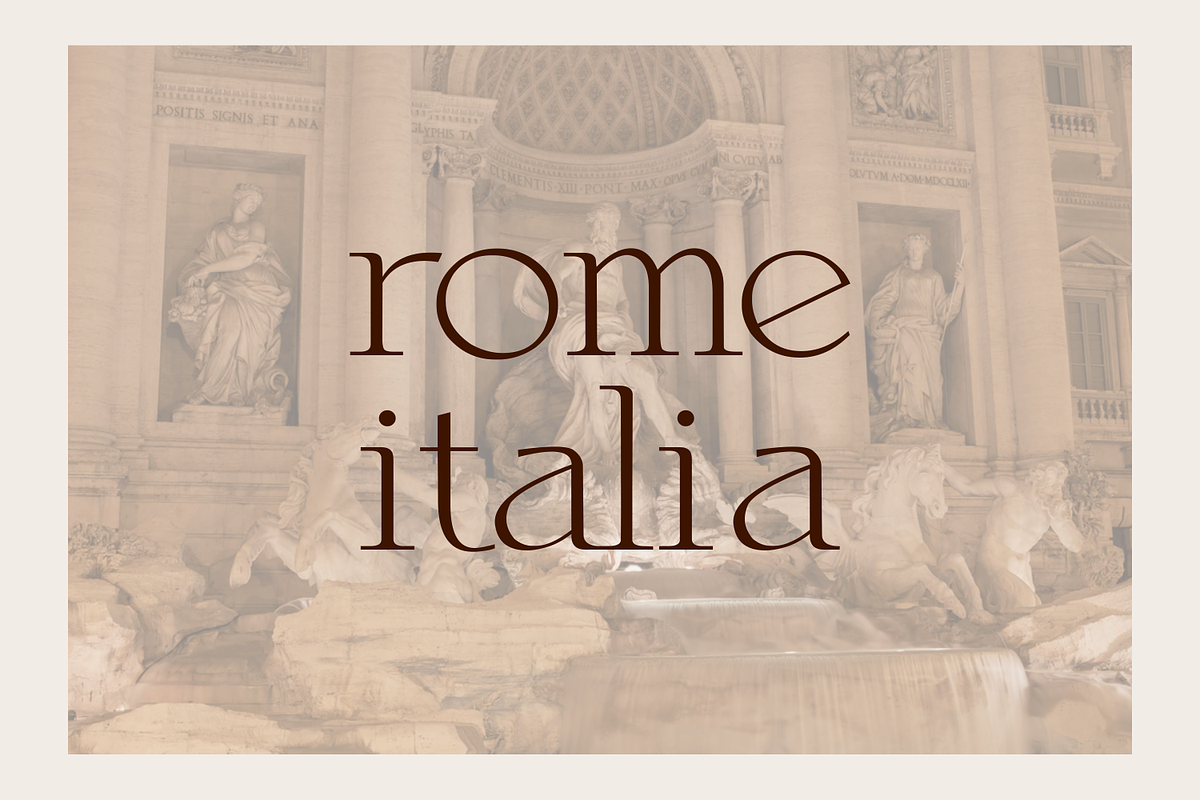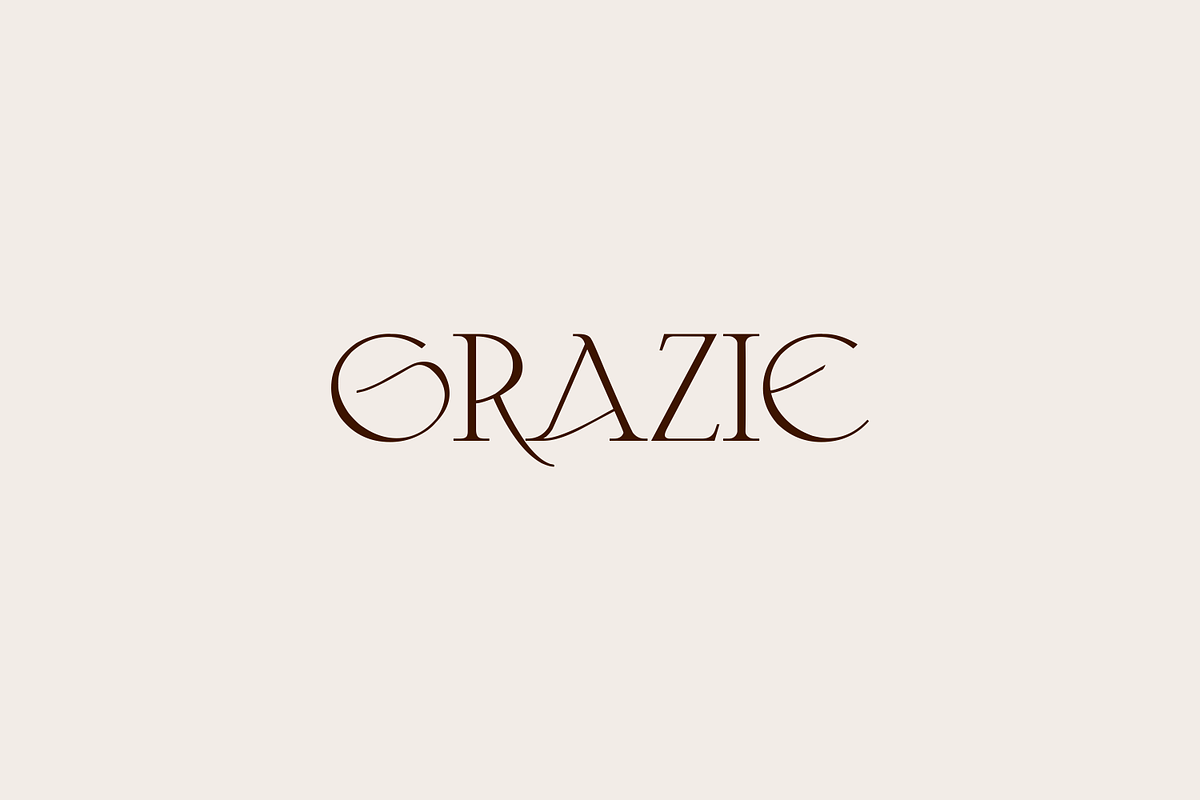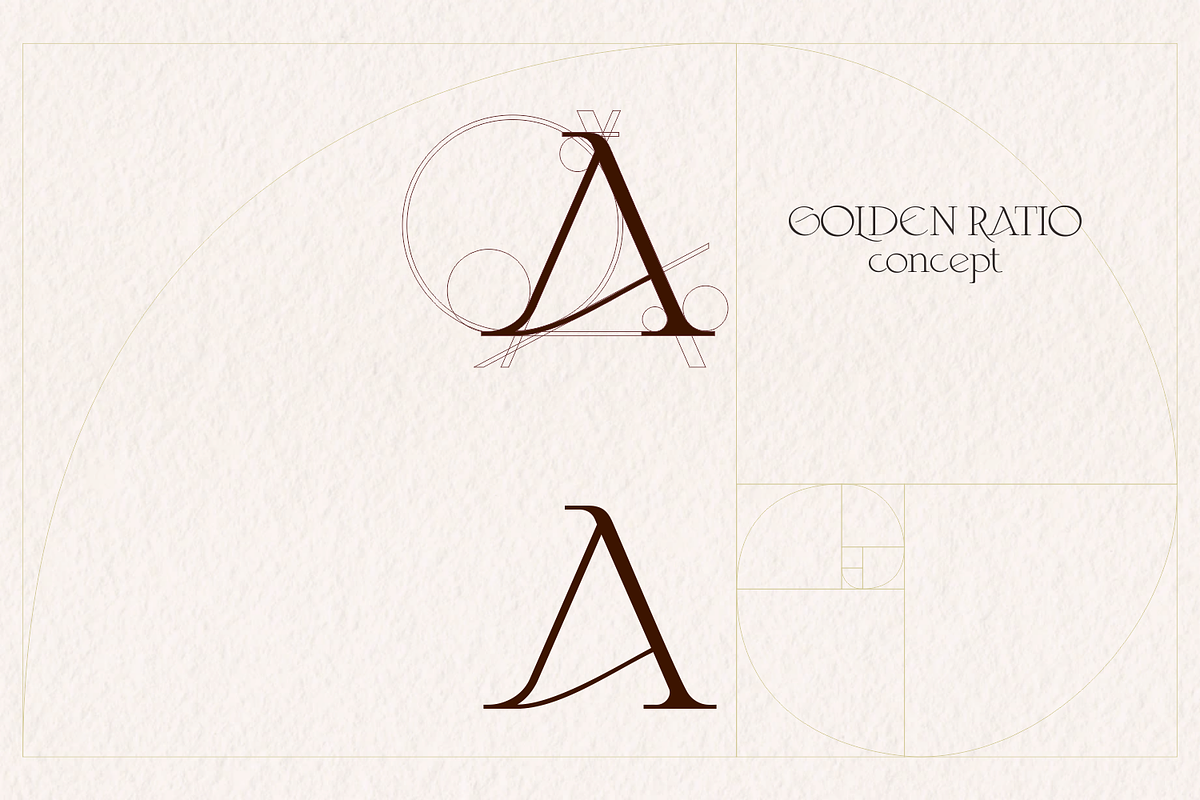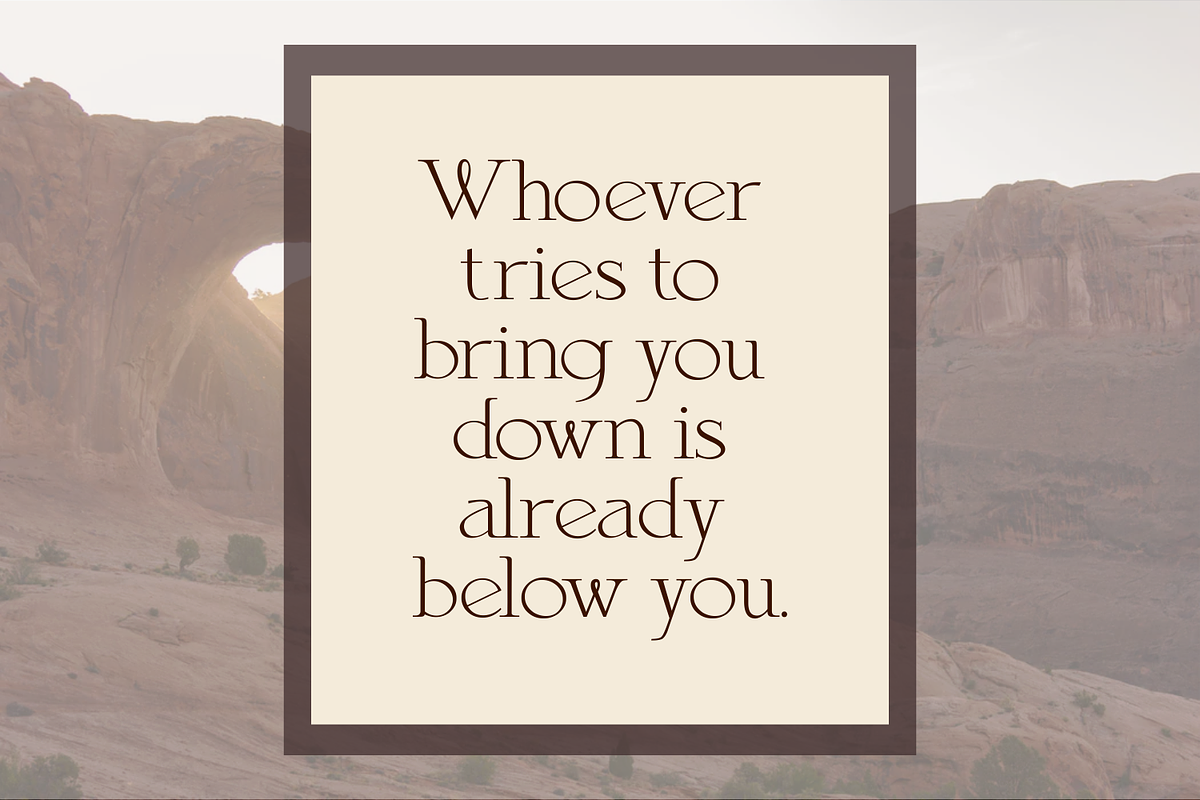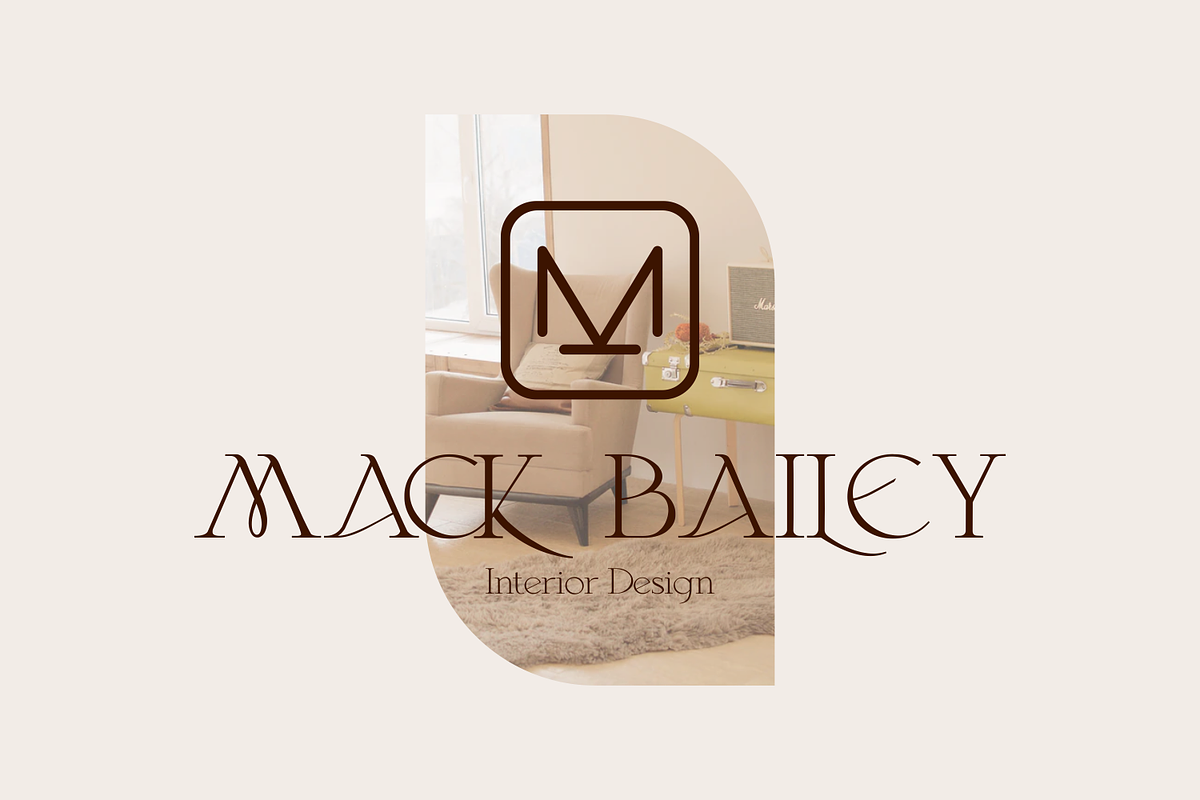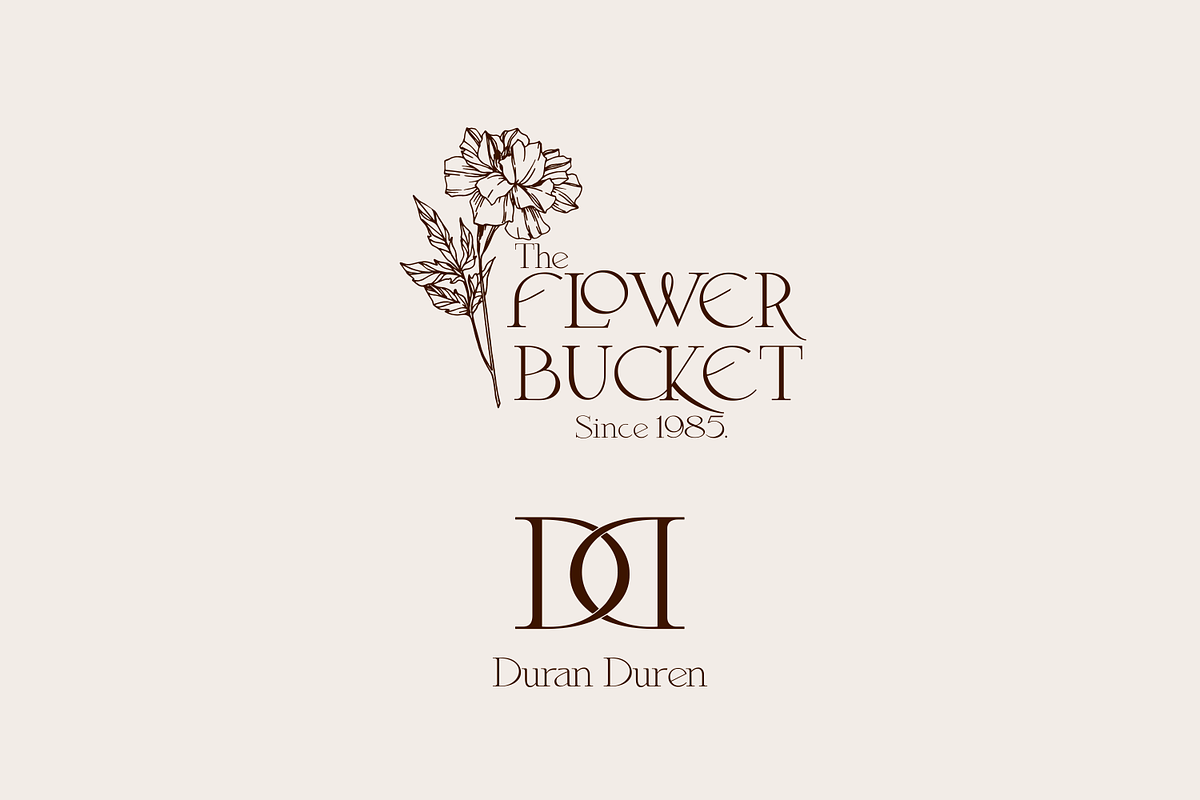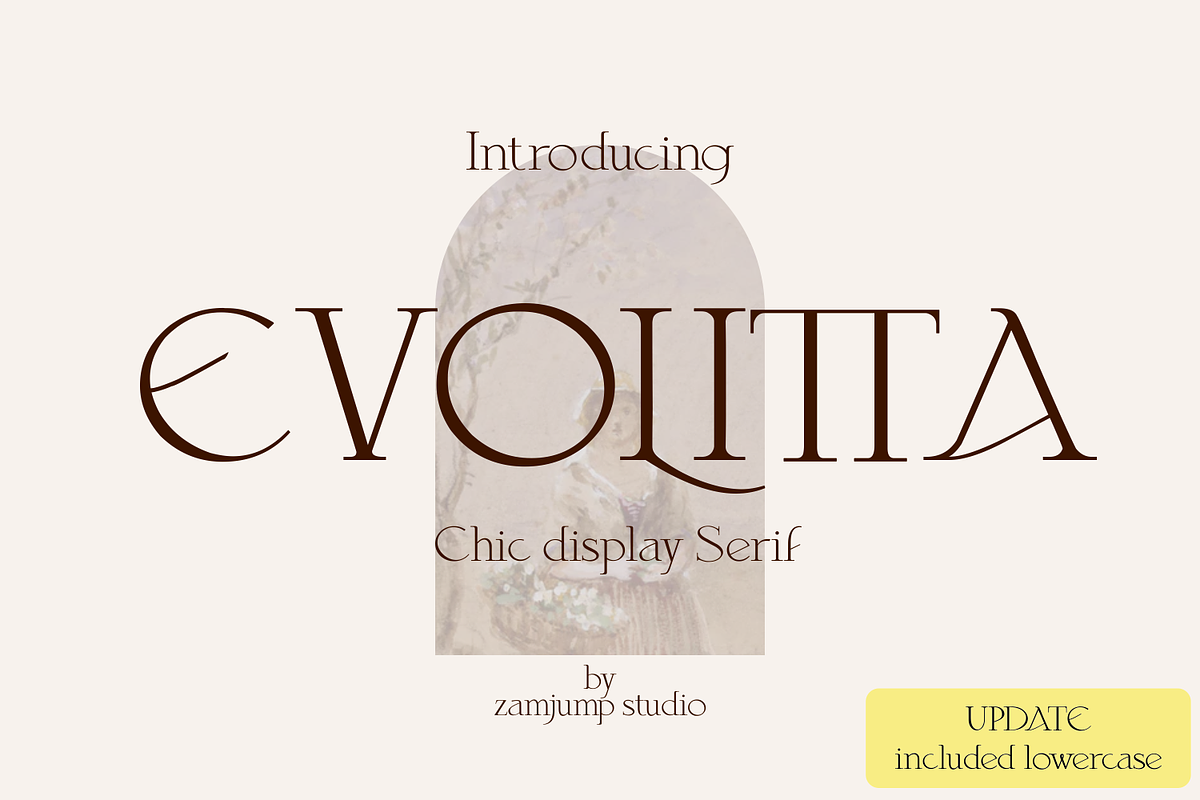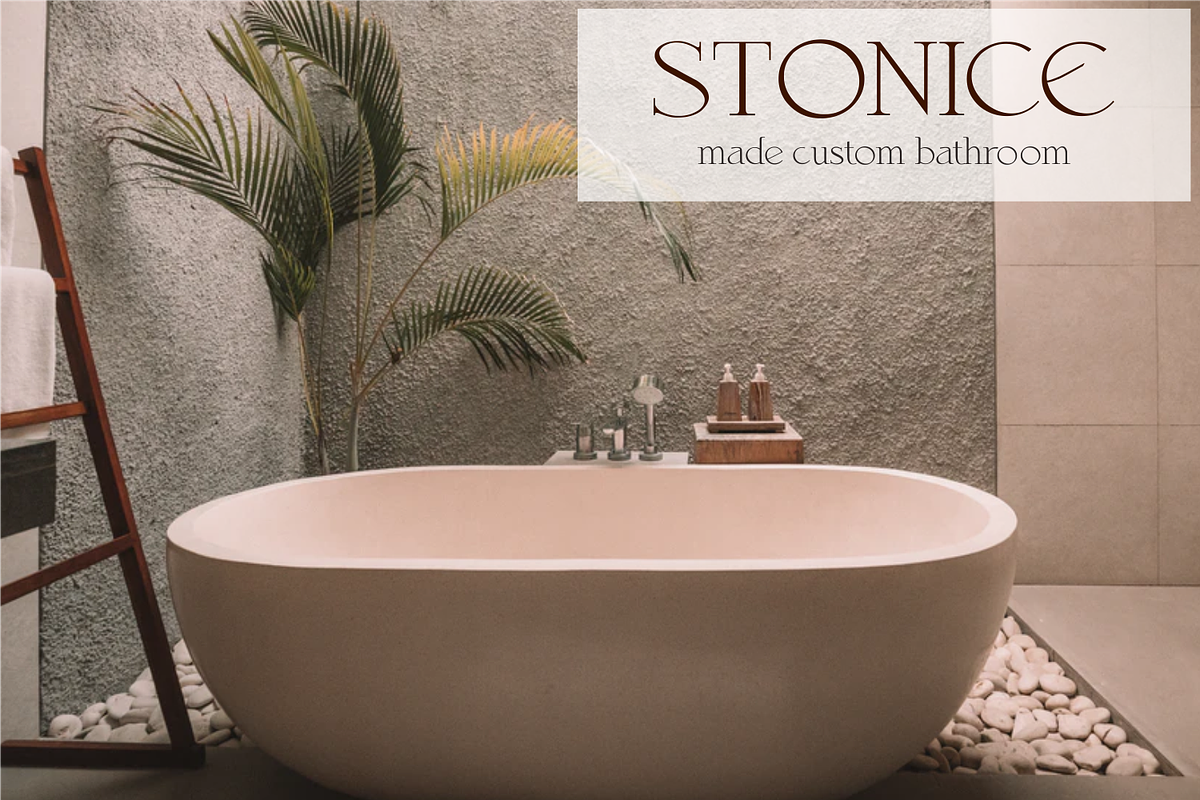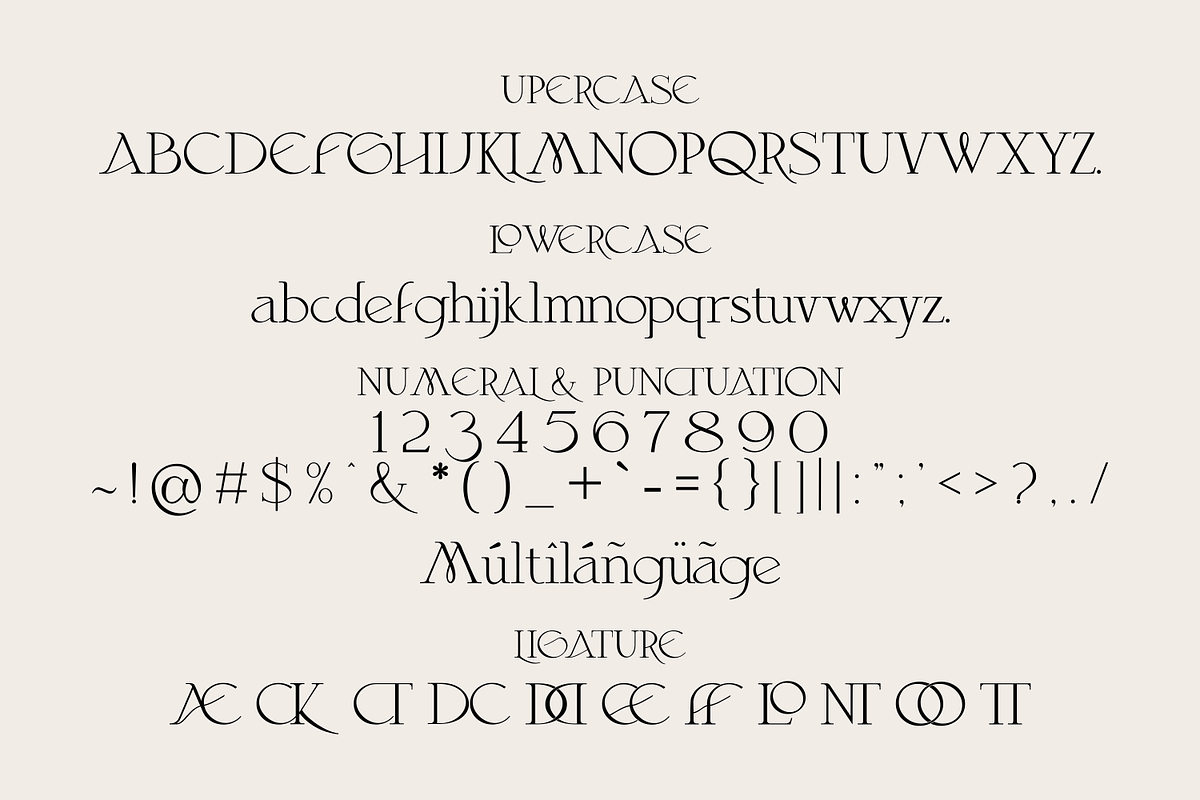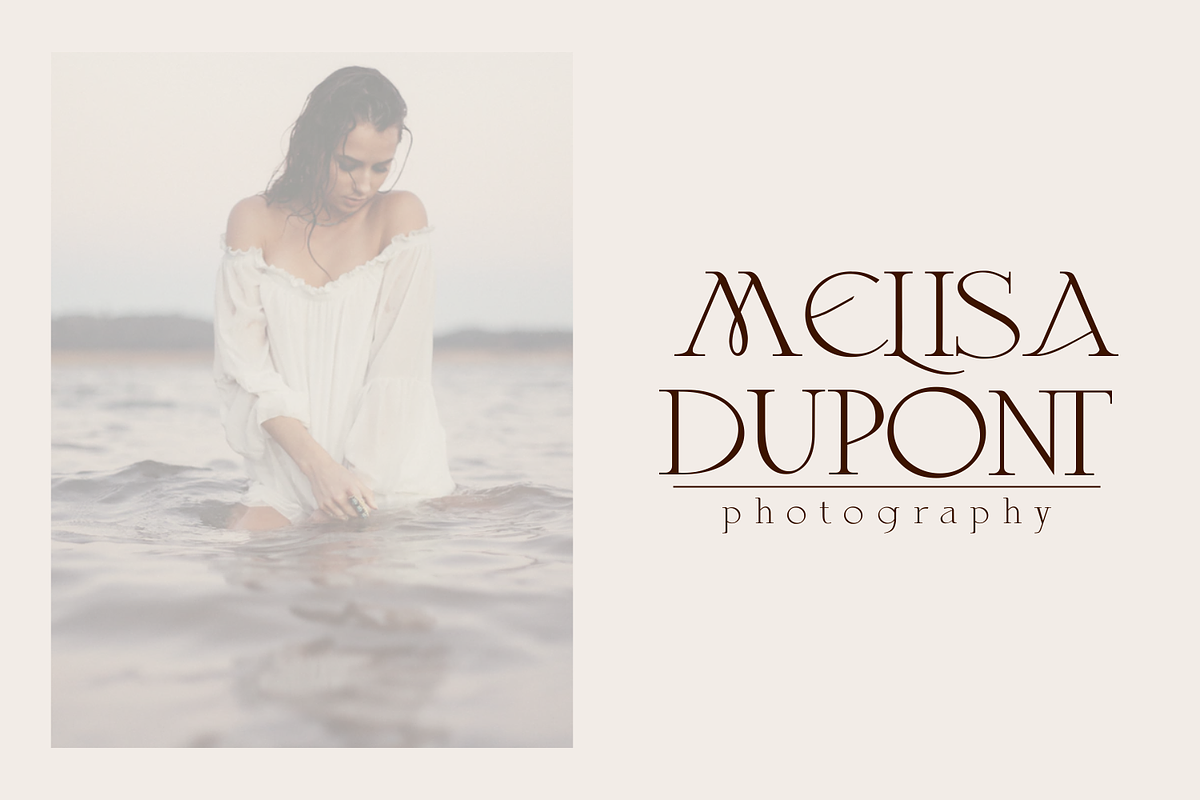
Evolitta
Evolitta - Chic & elegant serif look with lovely contrasts. Specially designed for elegant classic themed projects, it is perfect for creating designs with an elegant, chic lifestyle, such as quotes, logos, professions, web pages, and many more. INCLUDING: Evilitta Uppercase and lowercase (.ttf, .otf & .woff) multi language ligature "To generate all ligatures, go to Adobe Illustrator - Type - Glyphs." Please send me a message if you are having trouble either installing or using this font. We want to hear your feedback to further improve our product. If you're using this product and come across a problem or come across something we might have missed, feel free to drop us a message.